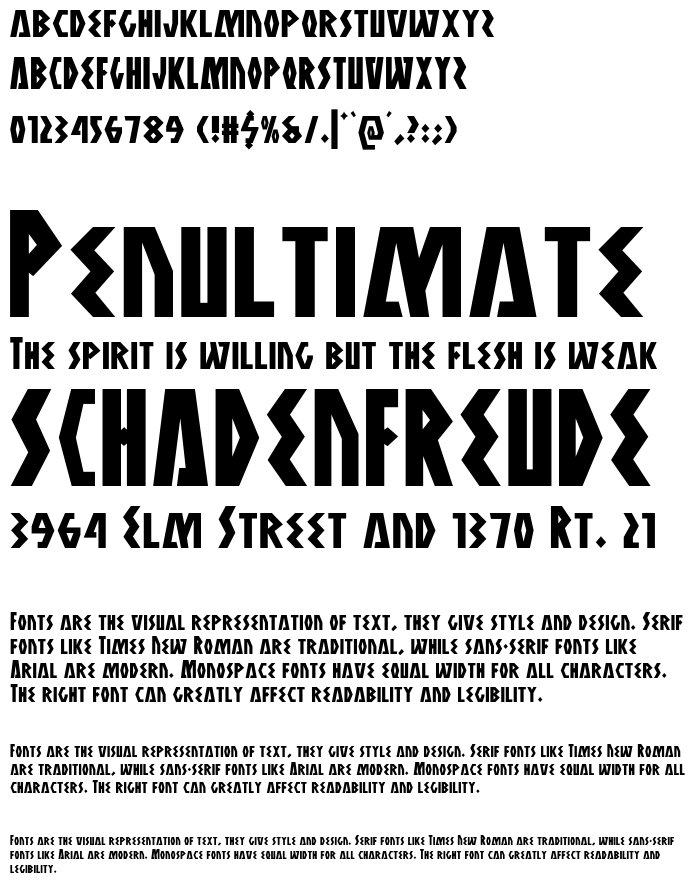
Antikythera Font Family
Designer
Daniel Zadorozny
A title font named for the Antikythera mechanism found off the coast of a Greek isle several decades ago. The device was a precise calculation insturment with engineering centuries ahead of its time. It was, historians say, the first real computer, and another device with similar functionality and engineering would not be seen again for several more centuries. Antikythera comes with a complete Latin character set.